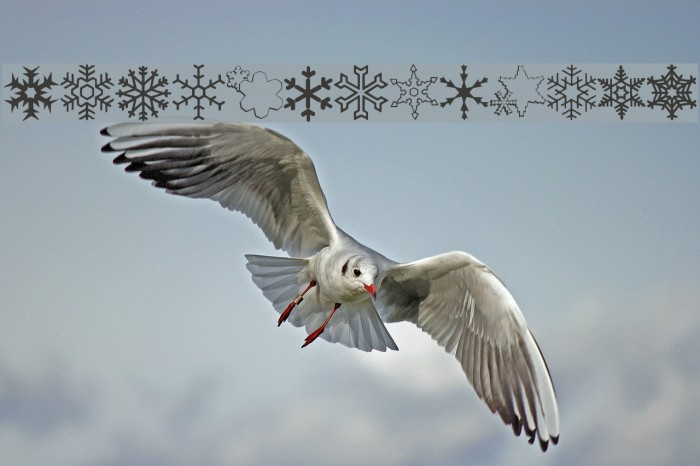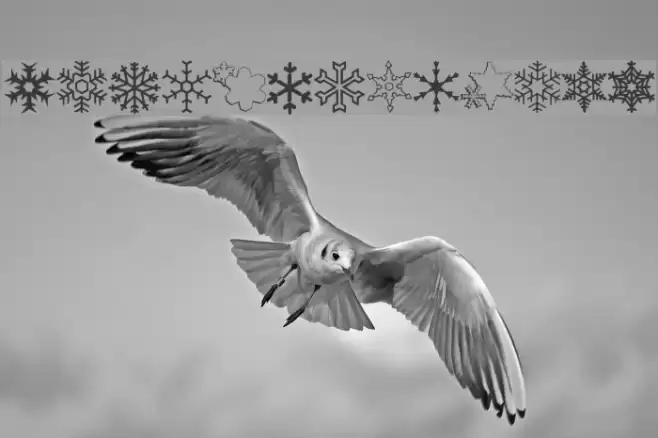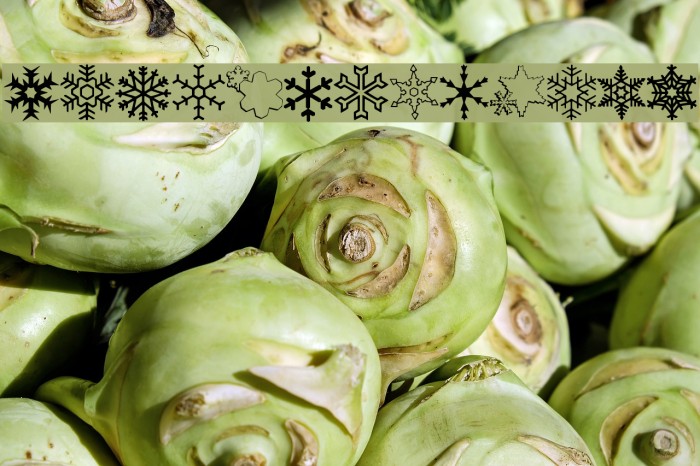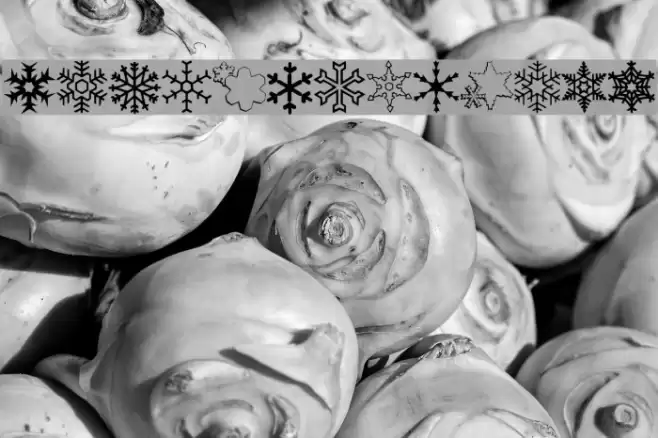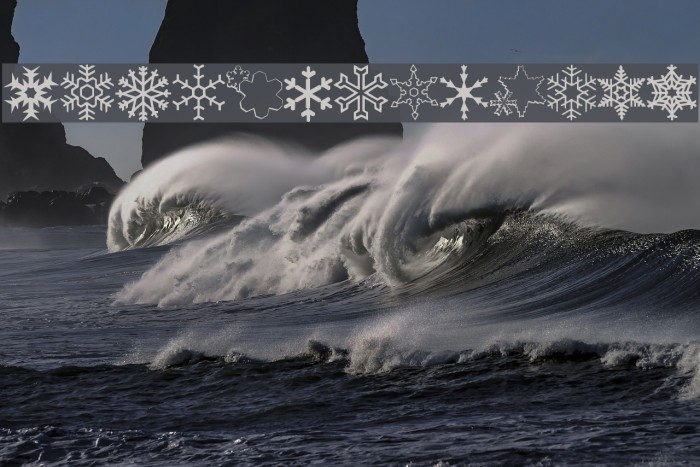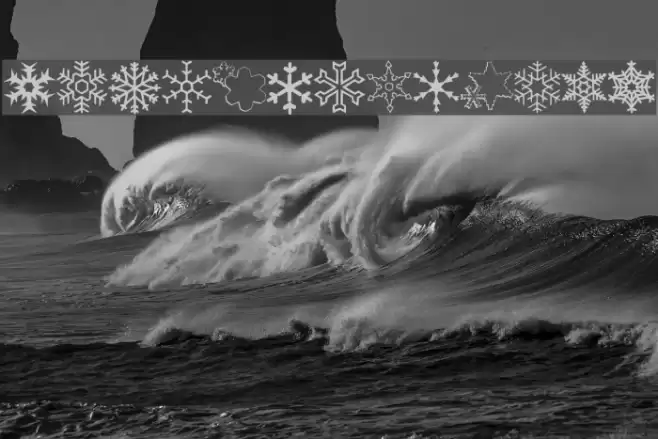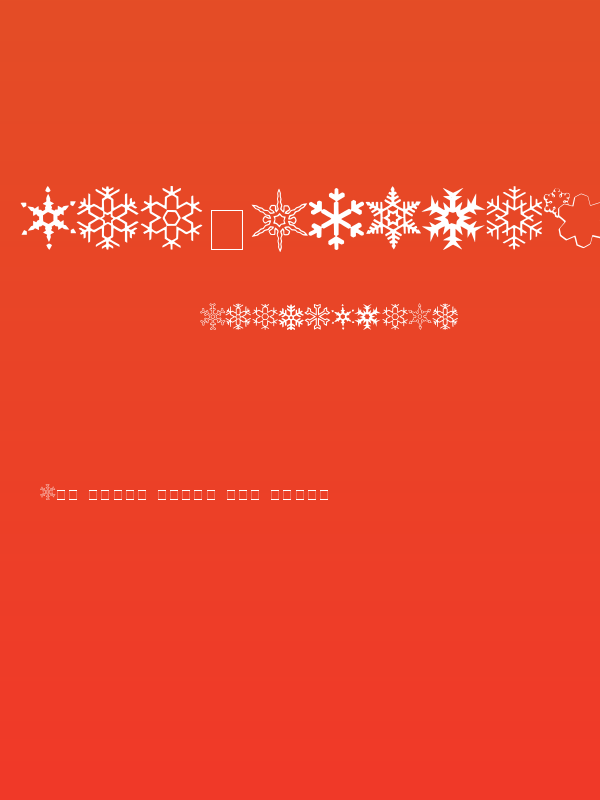
ryp_sflake7 Font
ryp_sflake7 Description
A decorative font featuring a variety of intricate snowflake designs as glyphs, each character represented by a unique snowflake illustration with both filled and outlined styles. The shapes are detailed and ornamental, evoking a winter or festive theme.
| Overall Style | Decorative, Festive, Thematic |
| Use Case | Decorative elements, Borders, Themed headlines, Seasonal graphics |
| Proposed Projects | Holiday cards, winter event invitations, seasonal branding, festive posters, decorative borders. |